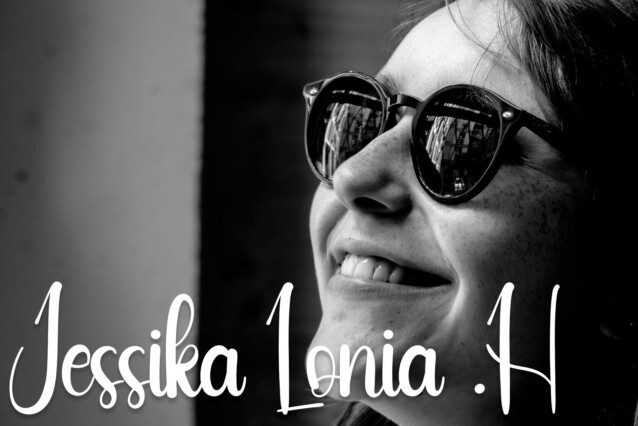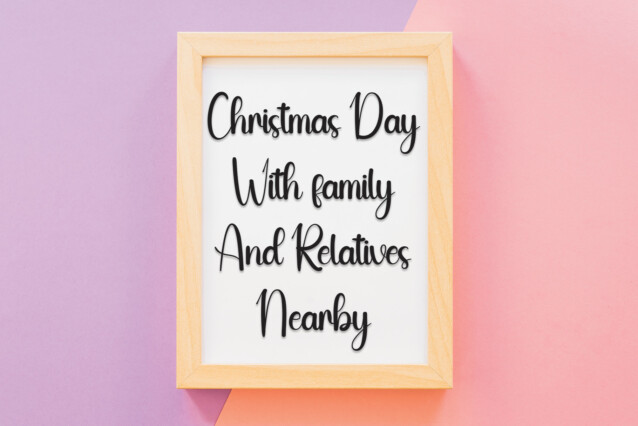
Saturday Christmas Script Font
Saturday Christmas Script Font feels equally charming and elegant. It looks stunning on wedding invitations, thank you cards, quotes, greeting cards, logos, business cards, and every other design which needs a handwritten touch.